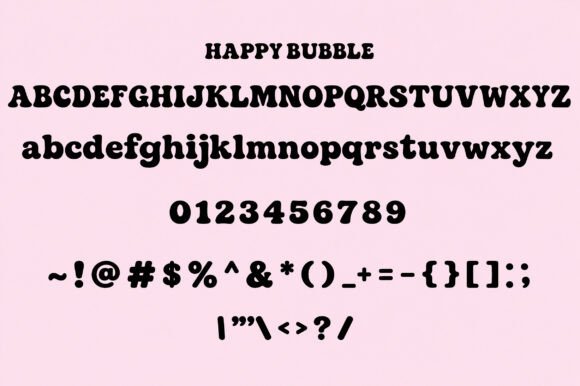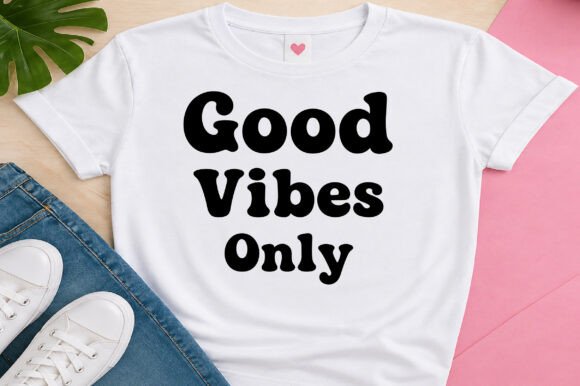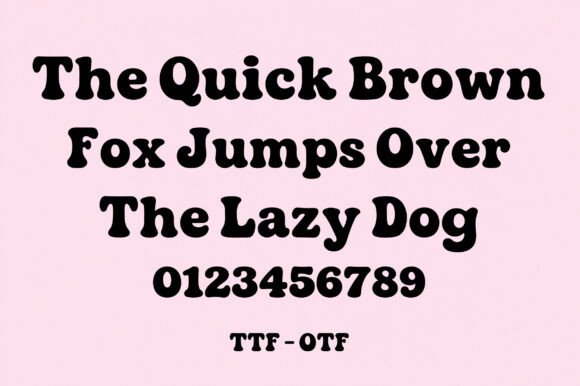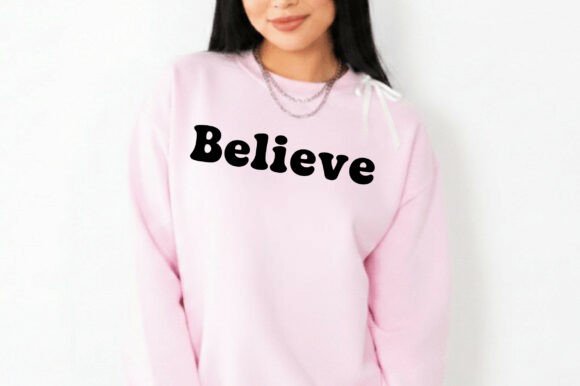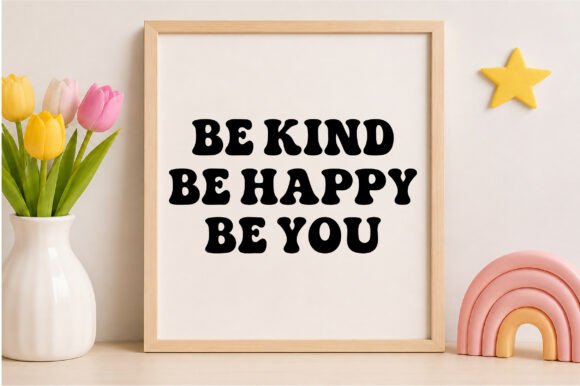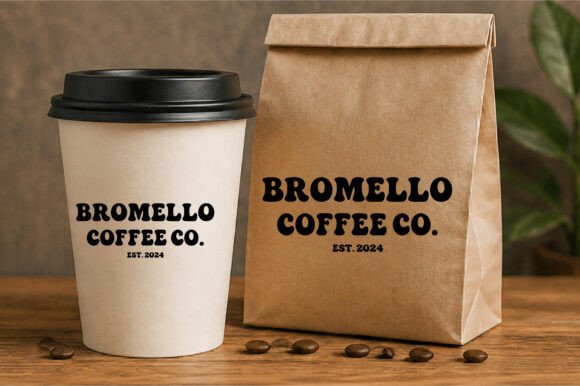
Introduction to Happy Bubble Font
Happy Bubble is a bold retro groovy font with soft bubble shapes and playful curves.
Perfect for posters, branding, t-shirts, stickers, packaging, social media, and vintage-themed designs Includes uppercase, lowercase, numbers, and punctuation for creative design projects.
Key Features of Happy Bubble Font
Why Choose Happy Bubble Font?